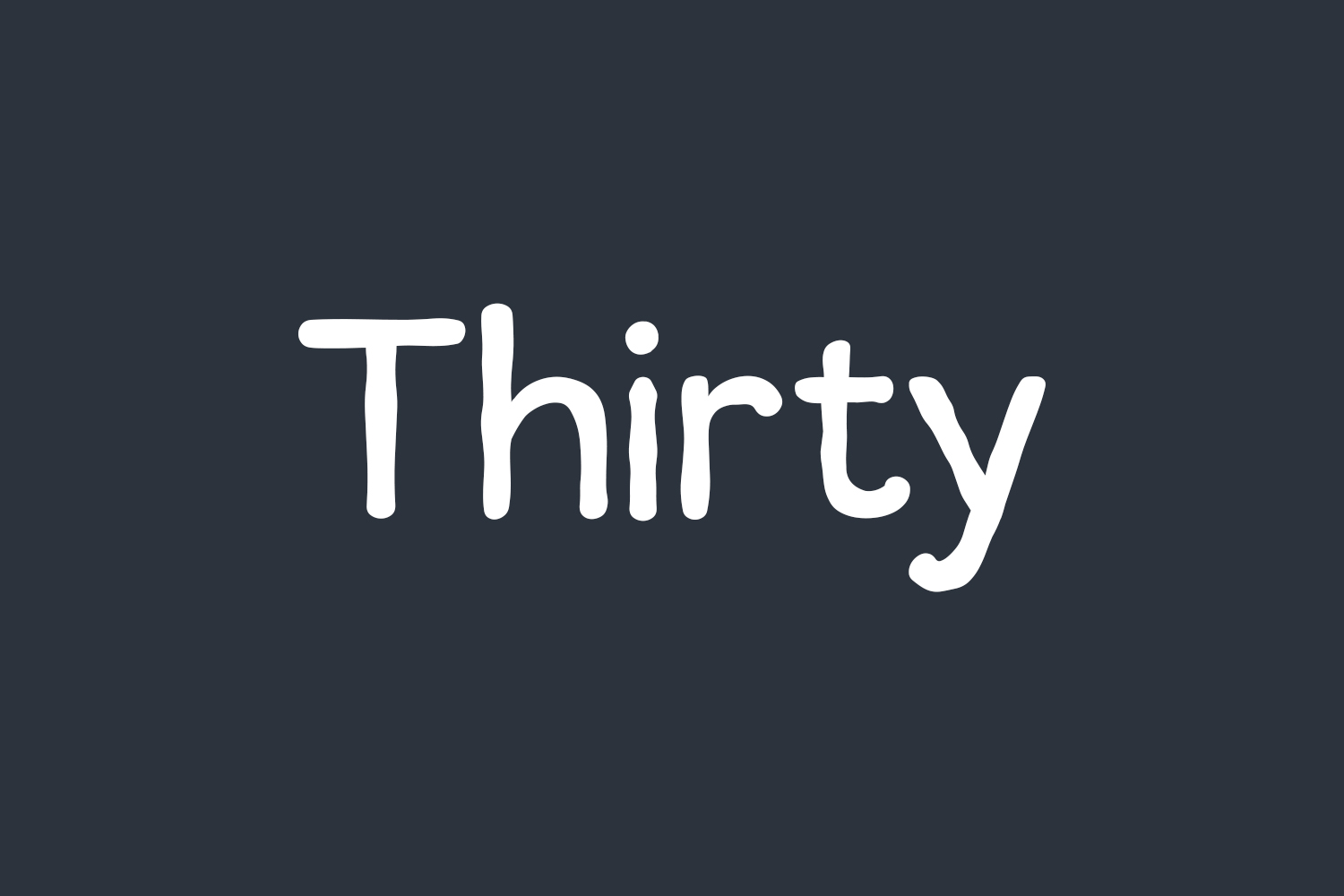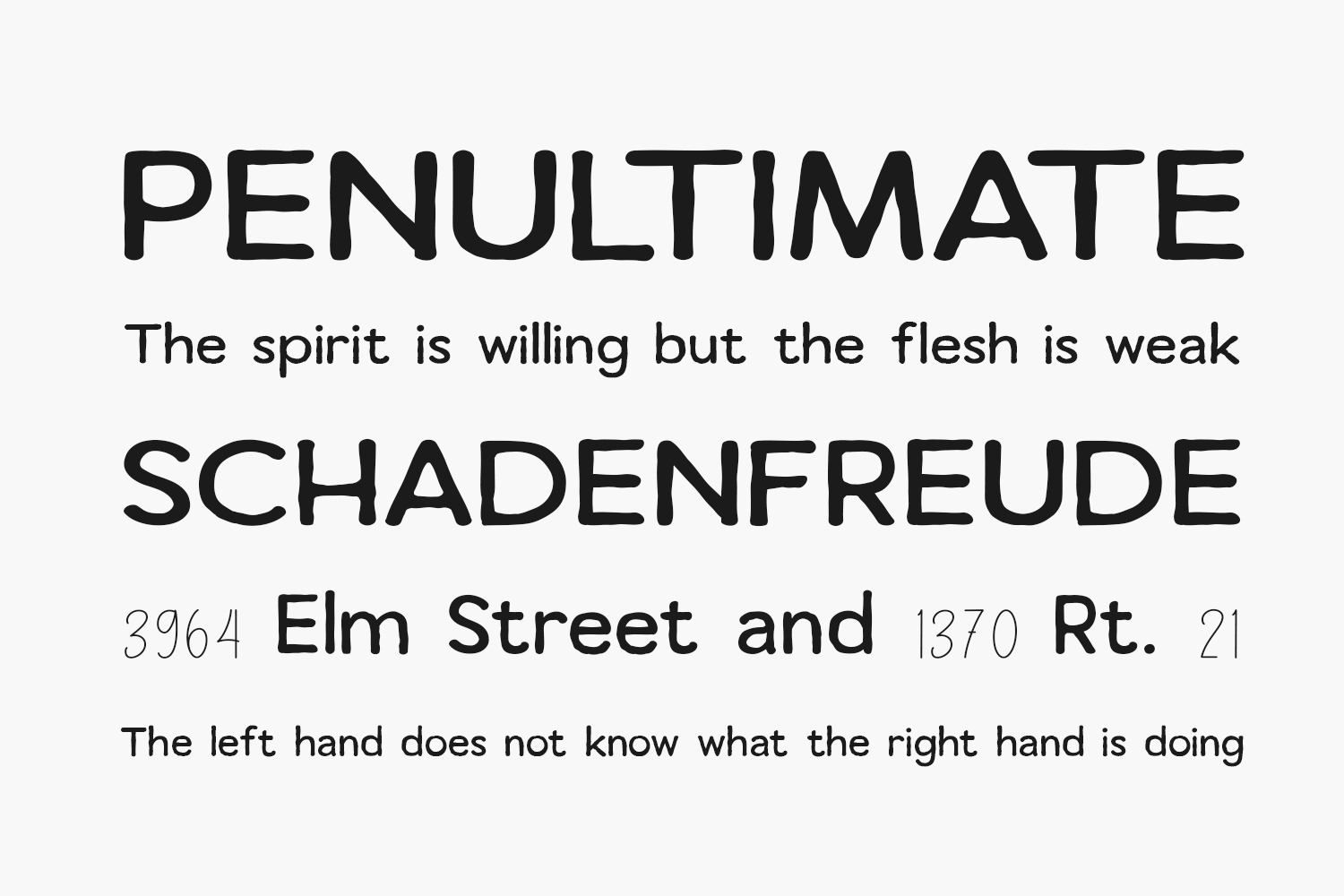
Introducing Thirty Free Font Family, an elegant font duo comprising a sans-serif and script style, exuding a distinctive vintage charm. Whether you’re crafting content for any subject, this font promises to be a remarkable addition to your collection, capable of enhancing the appeal of any creative project. Thirty Free Font Family is a demo and free for personal use only. Please purchase the full version for commercial use.
Designed by Vilogsign